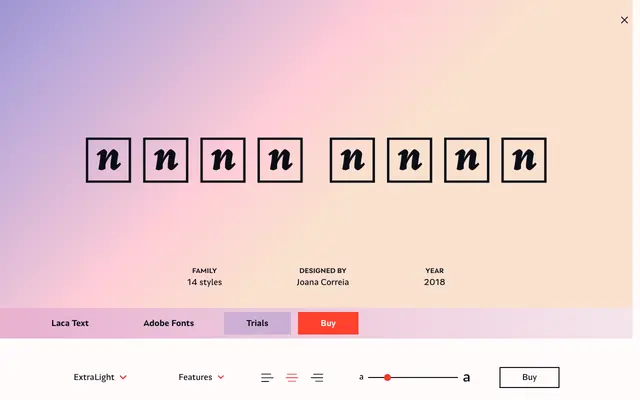
Laca Text
Nova Type Foundry · Joana Correia · 2018
A text-oriented sans serif by Joana Correia, derived from Laca but stripped back for legibility at smaller sizes across 14 styles.
Derived from the Laca family, this version trades Laca's more expressive details for a larger x-height, open counters and shorter ascenders that hold up well in continuous text. The seven weights run from ExtraLight to SemiBold, each with a true italic that sits quieter than its display counterpart. Suitable for long-form editorial and identity work, and designed to pair with the original Laca or stand independently.
Laca Text is a sans serif drawn from the base shapes of Laca, with open counters, a larger x-height and true italics, placing it firmly in the humanist sans tradition optimised for text setting.